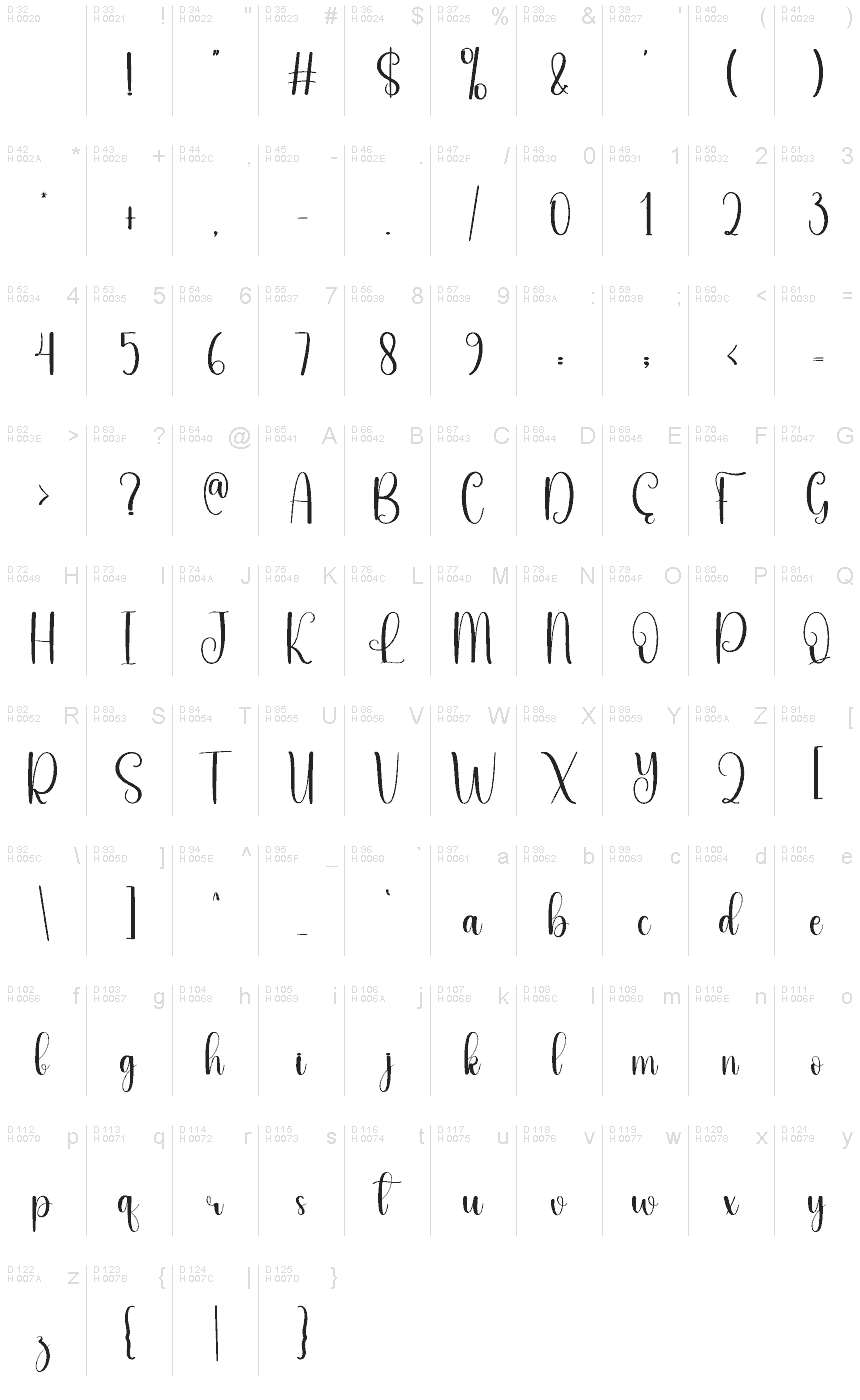
Nephew
Nephew font is a calligraphy font authored by Andi Moz in a natural handwriting style and suitable for a wide range of concept designs. While legibility, clarity, and readability are among the top virtues of Nephew, all-caps characters imbibe an extraordinary visual appearance, especially when used in unique brand work. The thin-stroked exquisite typeface is condensed which gives it a more compact but expressive look with its curvy ends on casual script letters.